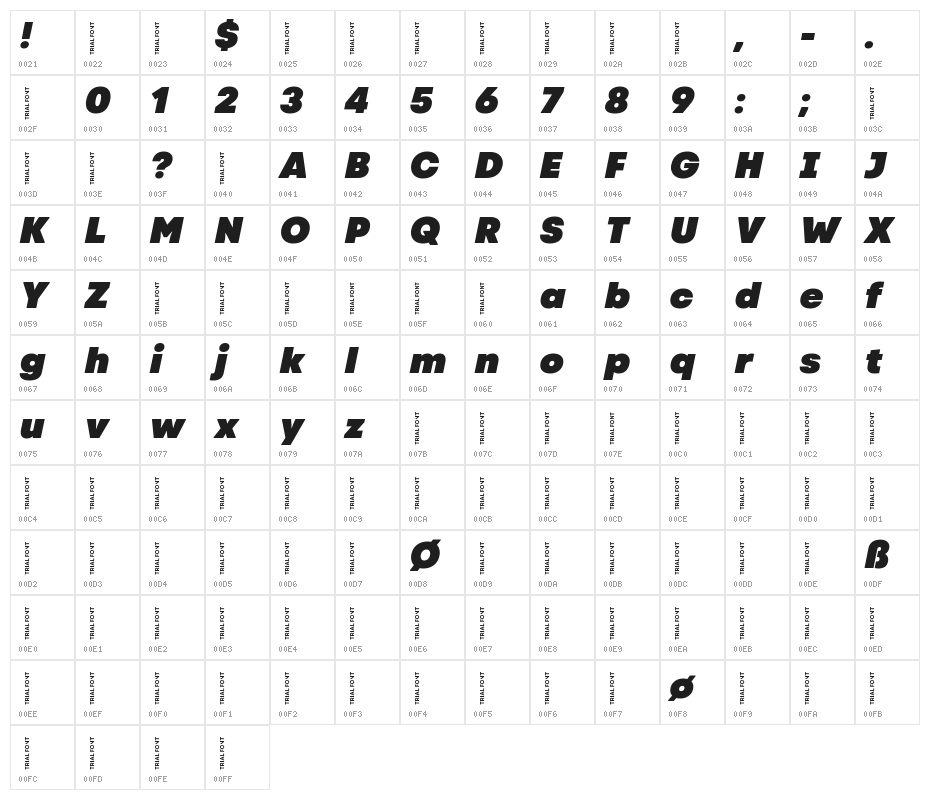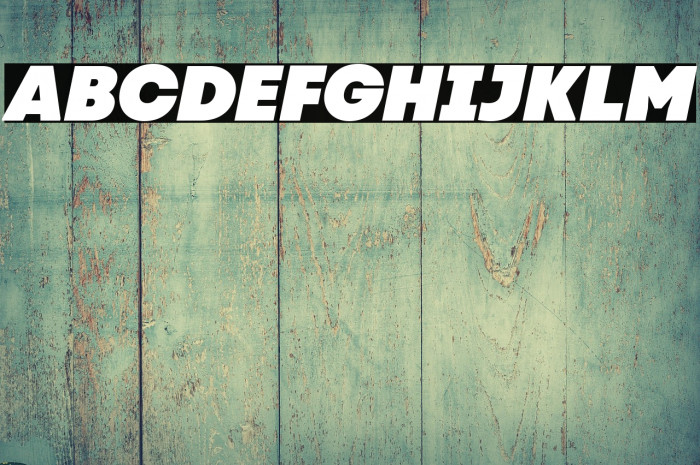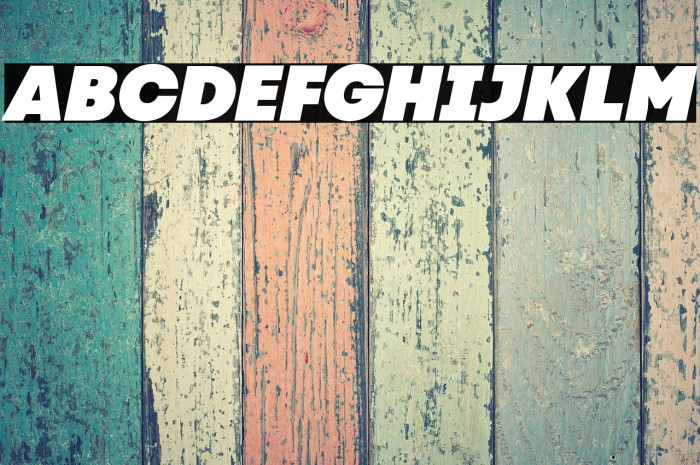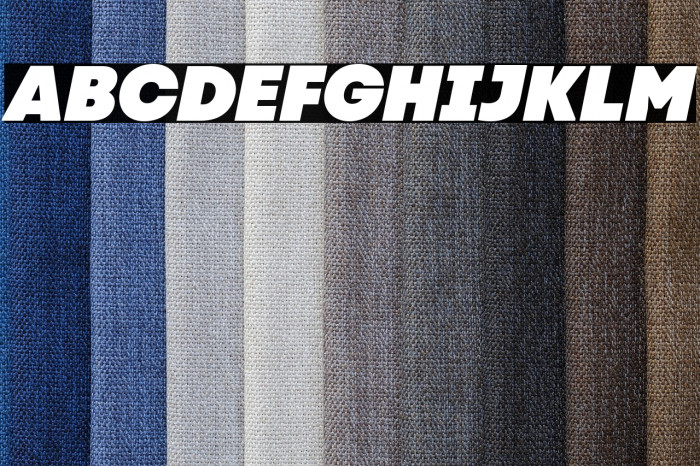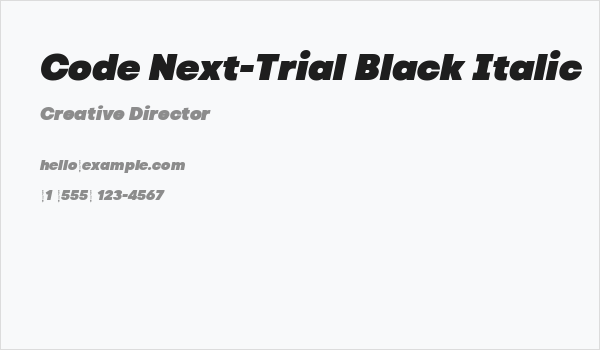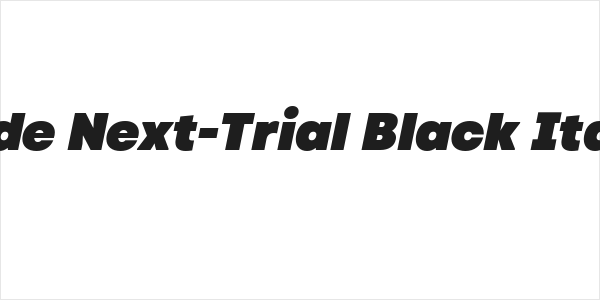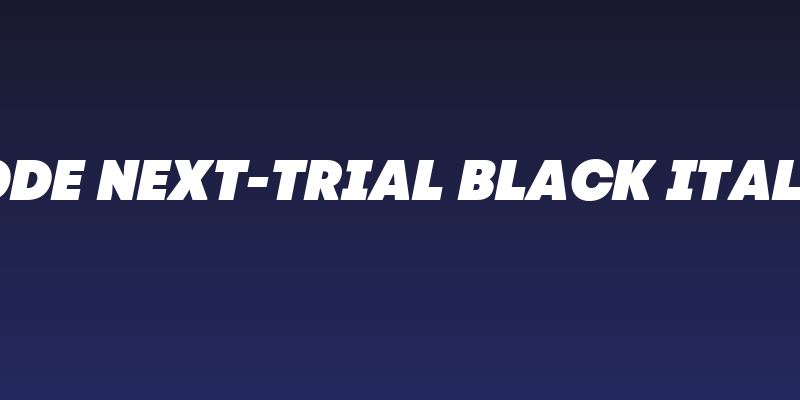
Code Next-Trial Black Italic Font
Code Next-Trial Black Italic Description
This font features a bold and italicized style, characterized by thick, strong strokes and a forward slant that gives it a dynamic and assertive appearance. The uppercase and lowercase letters are well-proportioned, with a consistent weight that enhances readability. The numbers are equally bold, maintaining the same visual impact as the letters. Special characters are designed with the same boldness, ensuring uniformity across all glyphs. The overall design is modern and impactful, making it suitable for attention-grabbing applications.
| Proposed Projects | Ideal for headlines, posters, branding, and any project requiring a bold statement. |